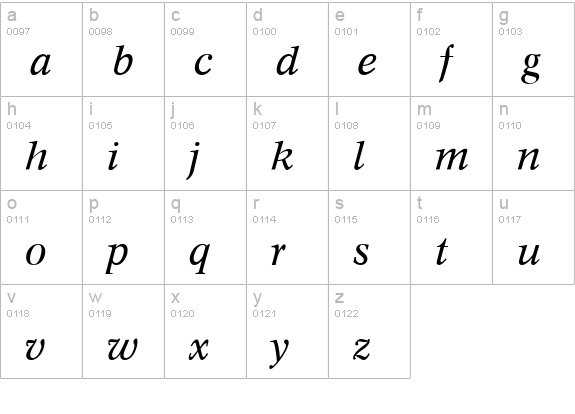
Concorde (R) Expert Italic OsF Font Details
Concorde (R) Expert Italic OsF is a distinctive, italic variant in the Concorde typeface family \xE2\x80\x94 well suited to design and typography projects.
Concorde (R) Expert Italic OsF font is a sophisticated and elegant typeface designed for those who demand precision and style in their typography. With its sleek and modern design, this font exudes a sense of professionalism and refinement. The italic style adds a touch of flair and sophistication, making it perfect for projects that require a touch of class. The Concorde (R) Expert Italic OsF font is available for free download at FontsMarket.com, making it easily accessible to designers and creatives looking to elevate their work with a high-quality typeface. Whether you're working on branding, advertising, or editorial design, this font is sure to make a statement and leave a lasting impression on your audience. Elevate your design projects with the timeless elegance of Concorde (R) Expert Italic OsF font.